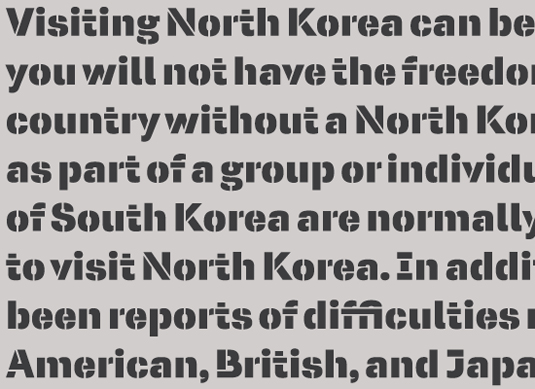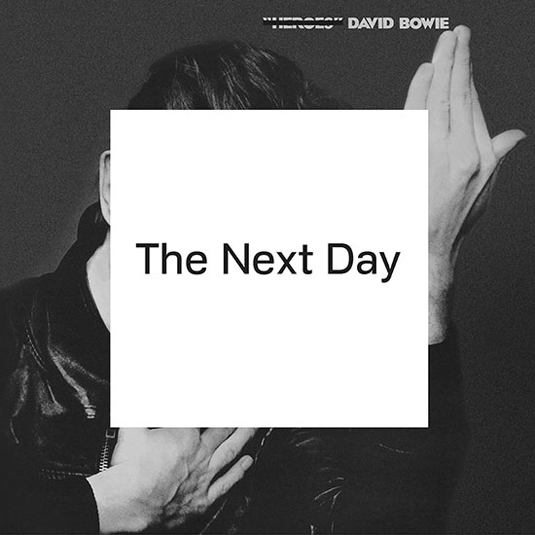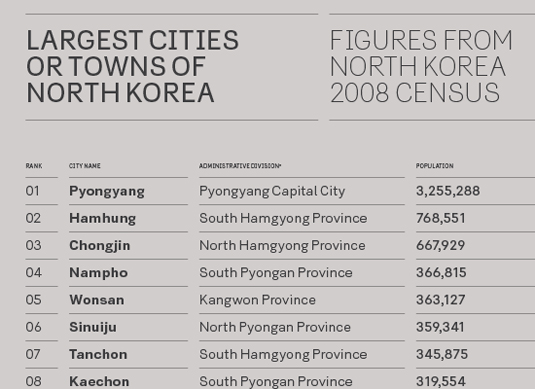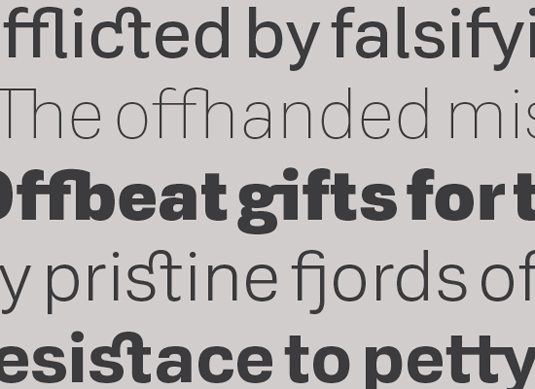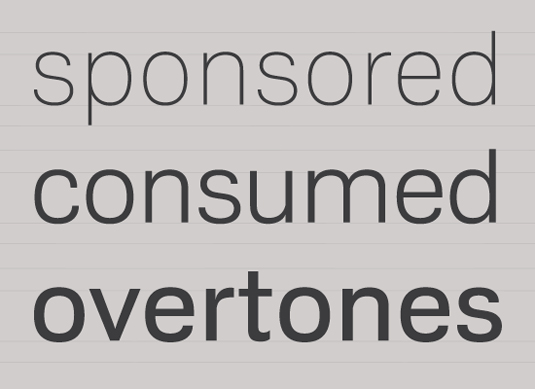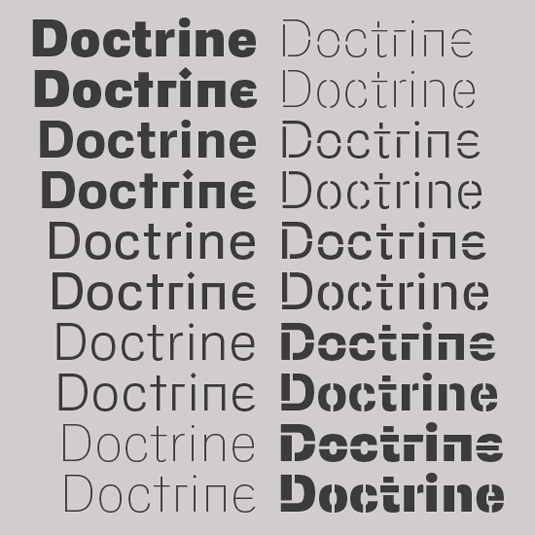
Bowie font inspired by North Korea available to download
Doctrine, the typeface used on David Bowie's latest album, is available to download today.
Font foundry VirusFonts has released the typeface used for the cover of David Bowie's recent comeback album, The Next Day. Doctrine Sans is a contemporary sans-serif typeface that has its roots in North Korea, with Virus describing the font as "the moderate comrade of the display typeface Doctrine Stencil" - which is an homage to the livery of the secretive country's national airline, Air Koryo.
VirusFonts, the font foundry of Jonathan Barnbrook and Barnbrook design, has long been interested in the link between ideology, language and typography, and it is this concept that inspired the creation of Doctrine.
Virus seeks to produce experimental, innovative and usable fonts, and from the obscure starting point of the North Korean national airline livery, Doctrine has grown to encompass a series of more mature typographic influences. Doctrine is available to buy now in the flexible, cross-platform OpenType format.